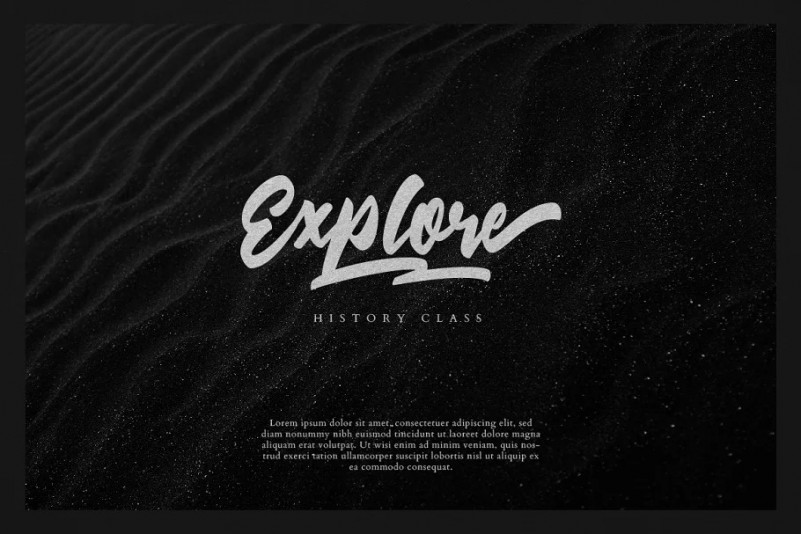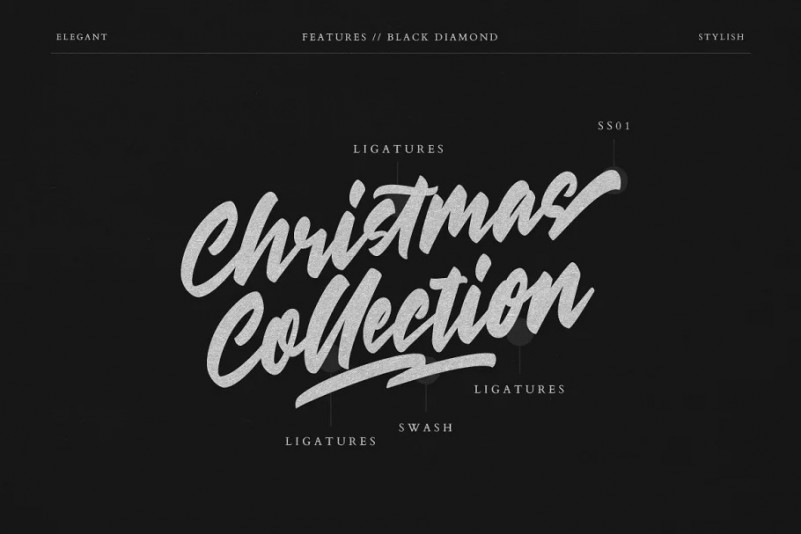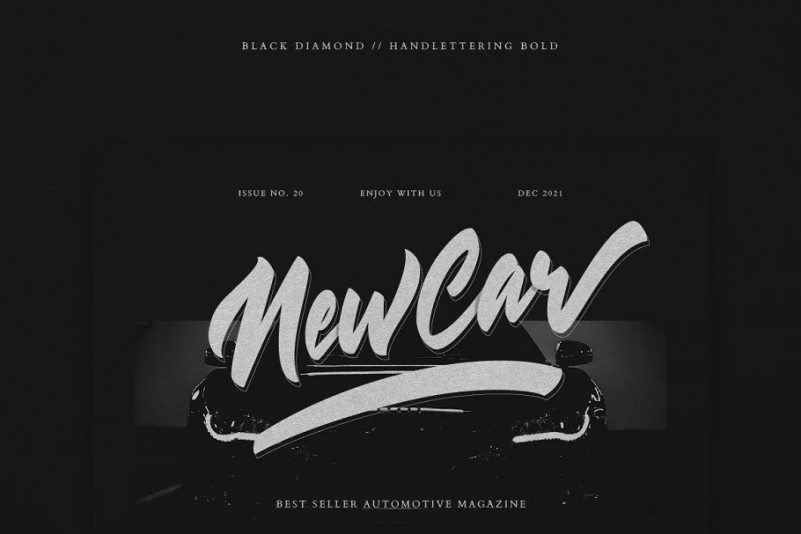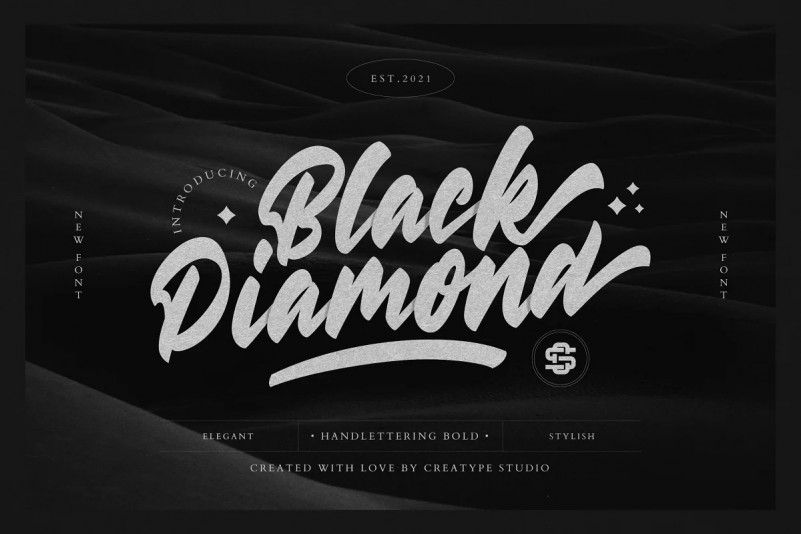
Black Diamond Font
Black Diamond Brush Font
This is a handwritten font created with a brush with a unique feel. This typeface look so bold, stylish, elegant and of course a classy modern look with the added swash in it.
Black Diamond is perfect for branding projects, logo, wedding designs, social media posts, advertisements, product packaging, product designs, label, photography, watermark, invitation, stationery and any projects that need handwriting taste.